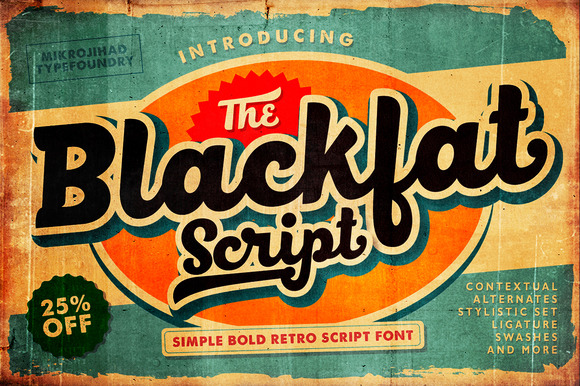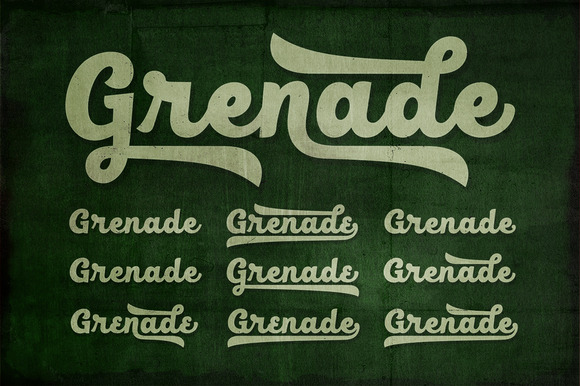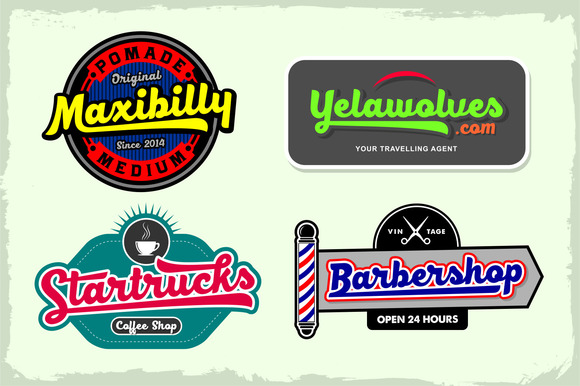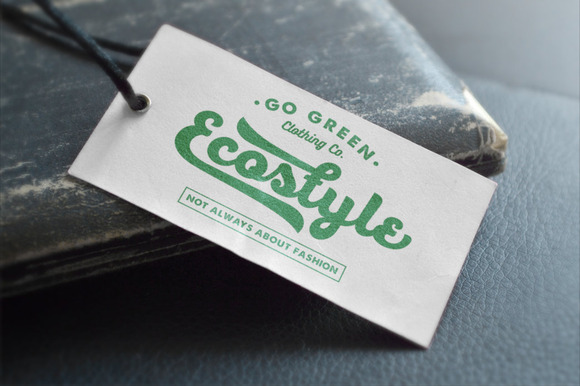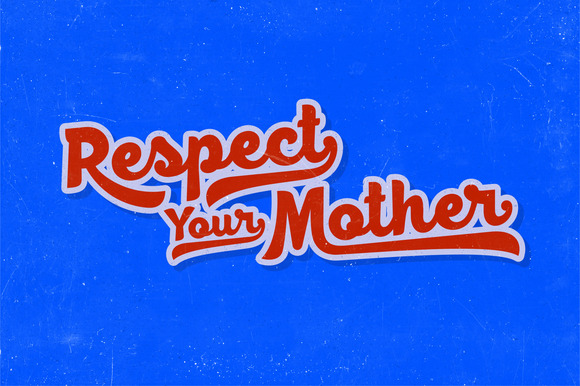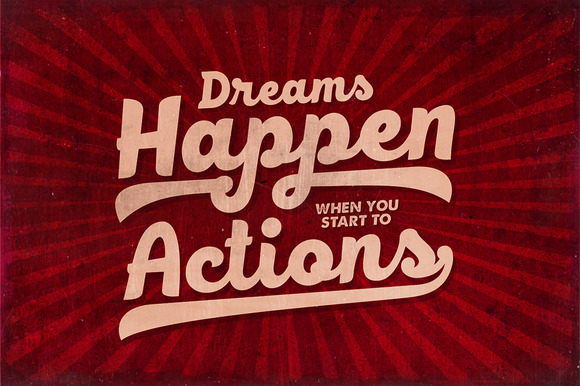
Blackfat Script Font
About Blackfat Script Font
The Blackfat Script is a new bold retro script font that can be used for various purposes such as headings, posters, t-shirts, logos, labels, book covers, and much more